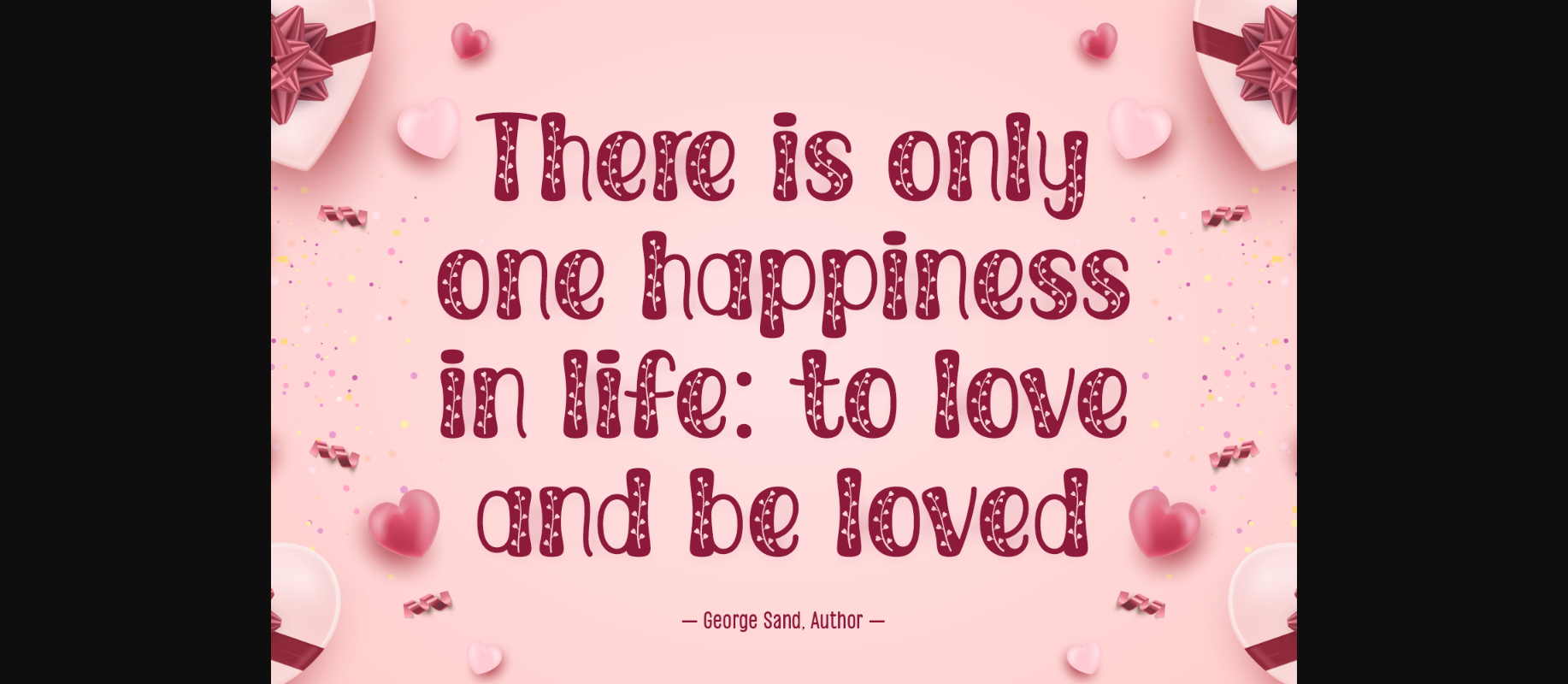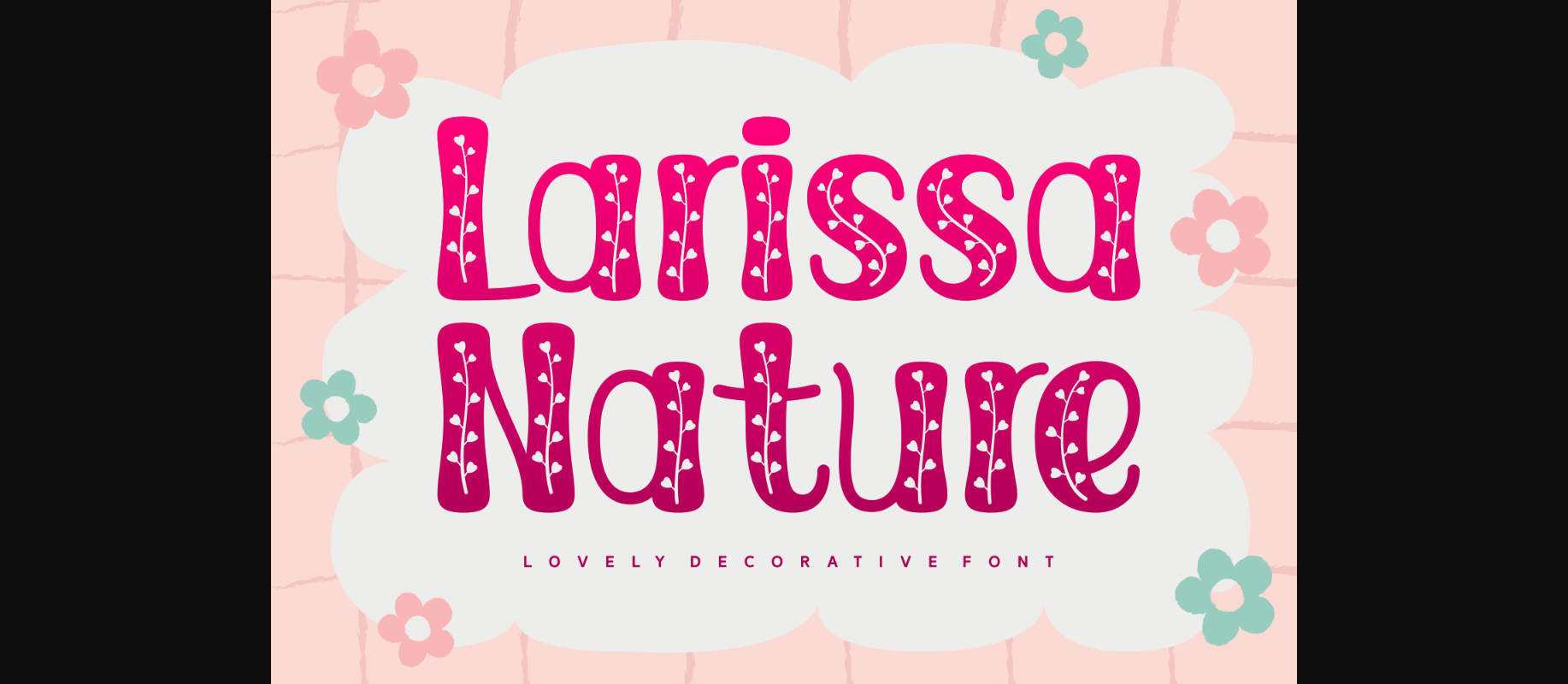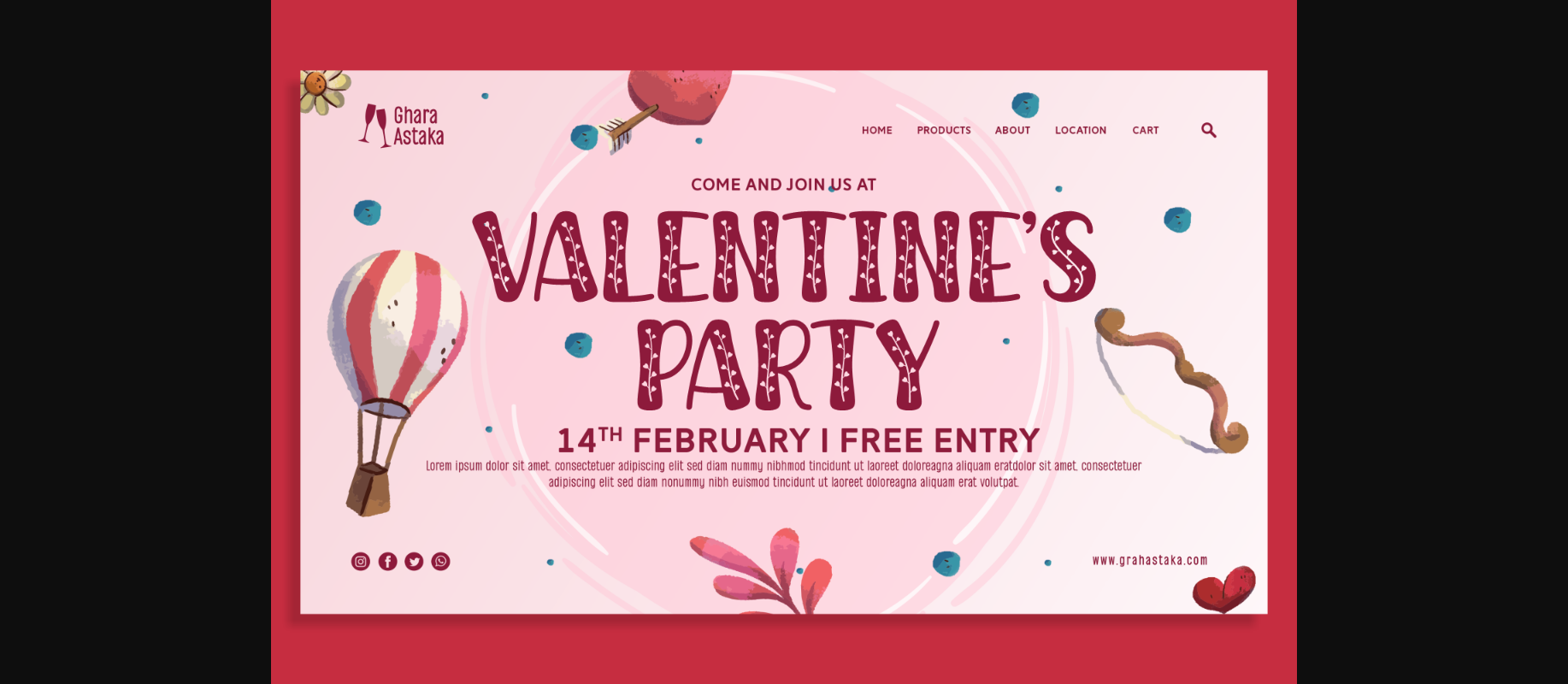
About Larissa Nature Font
Larissa Nature is a lovely decorative font with charming details. These mixed-width characters feature adorable elements to help you create outstanding typography designs. Choose this beautiful font for Valentine’s day projects, greeting cards, invitations, fabric prints, and many more.